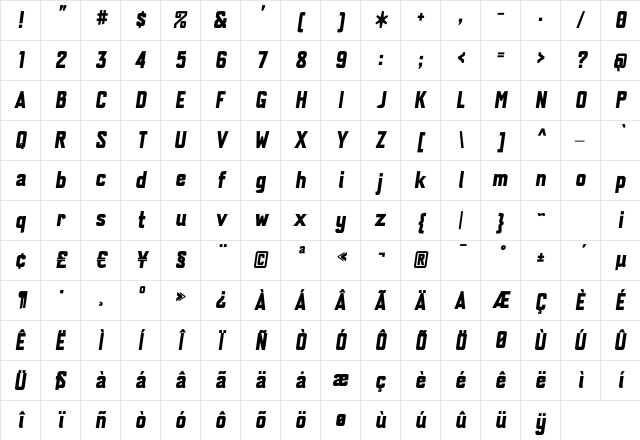
PaggioBold Oblique Regular Free Font
PaggioBold Oblique Regular
Design Context for PaggioBold Oblique
PaggioBold Oblique is a composed and adaptable typeface that performs quietly and consistently across a wide range of design contexts. The slanted form adds forward momentum and visual energy. Its bold stroke weight gives it real presence on the page.
Pro Tip: Use PaggioBold Oblique for emphasis, pull quotes, and subheadings where its slanted energy can add rhythm to the layout.